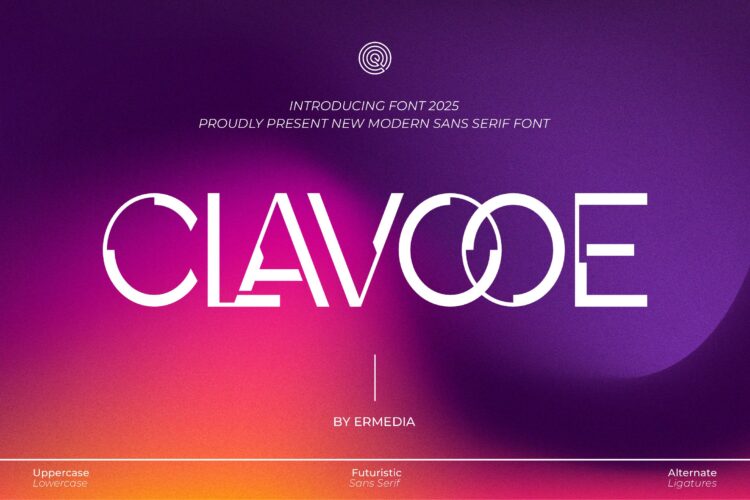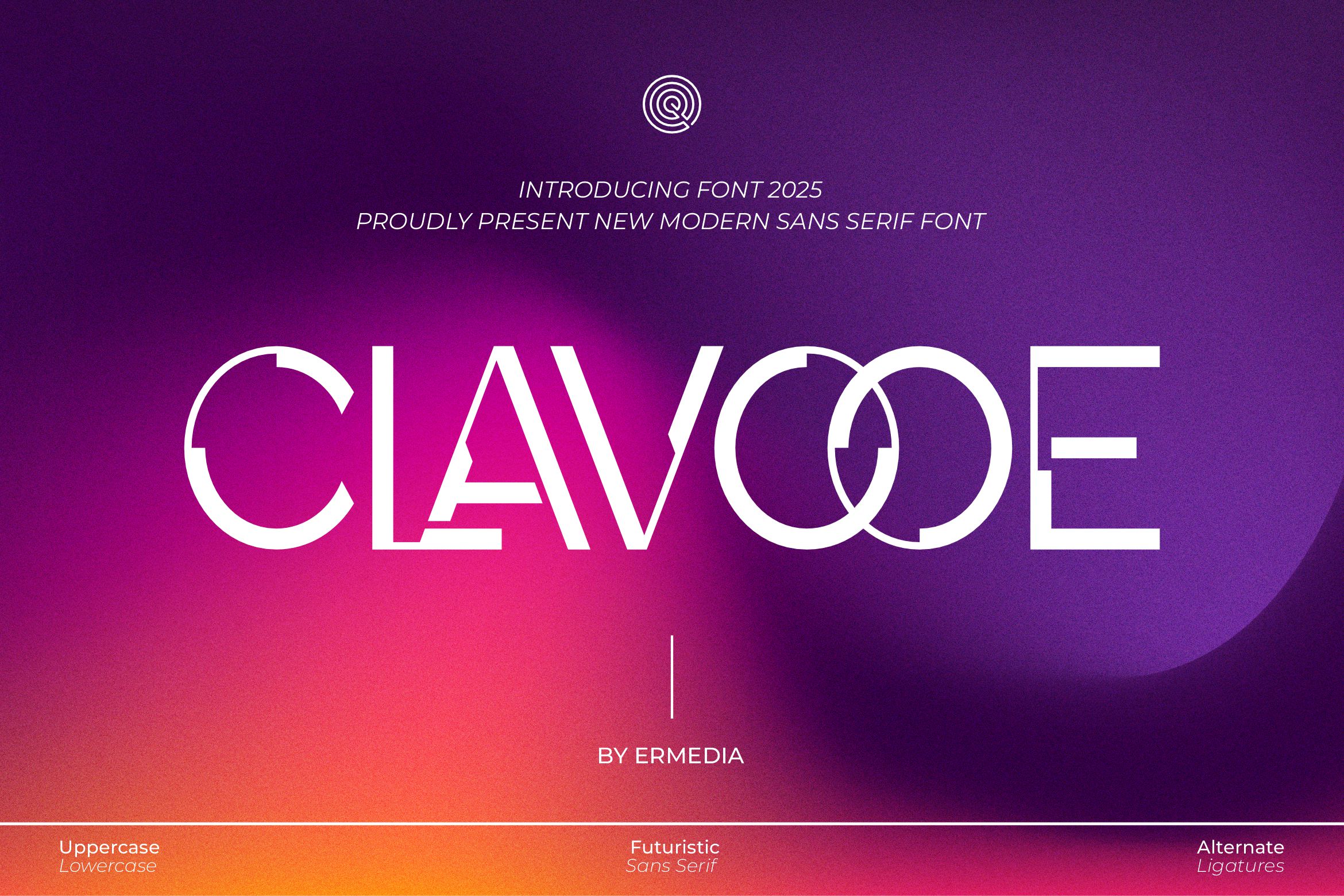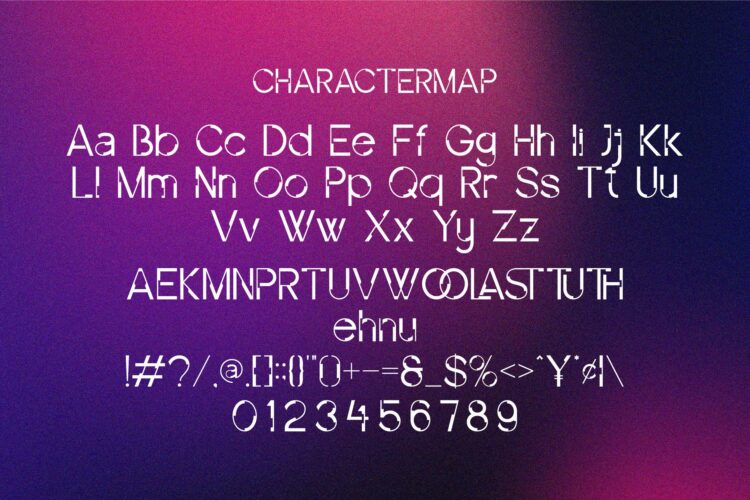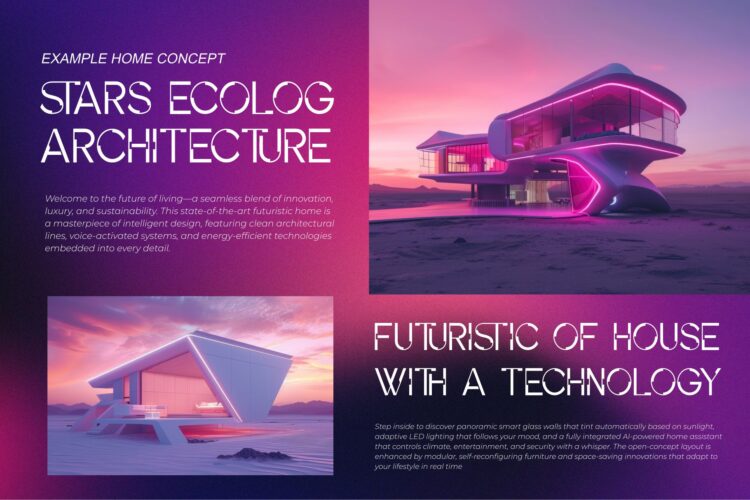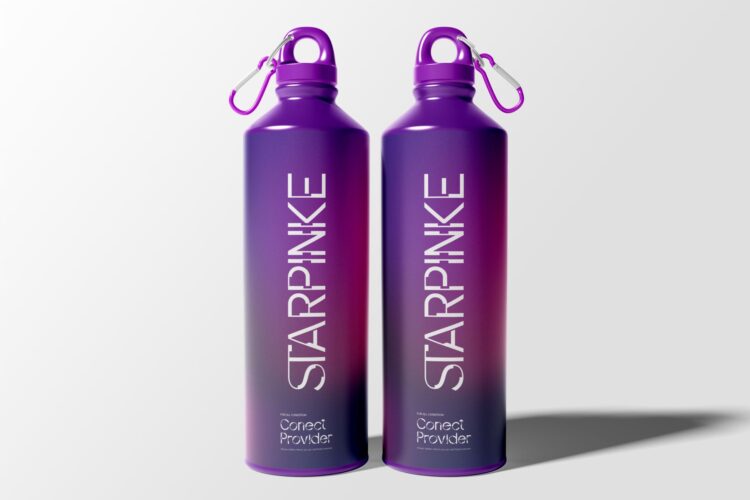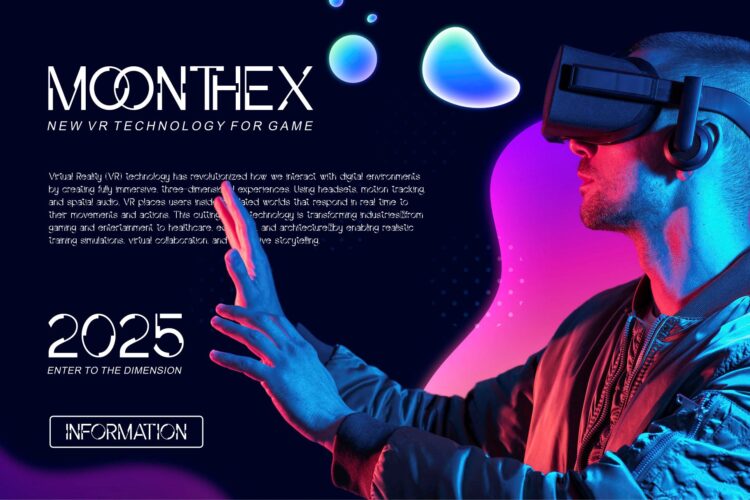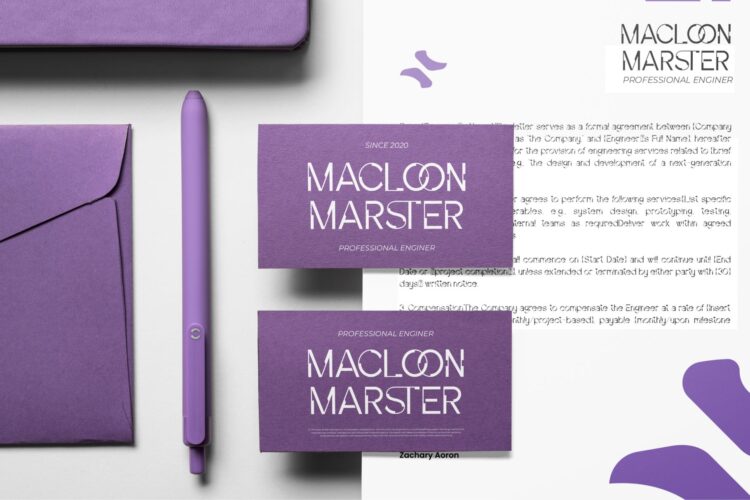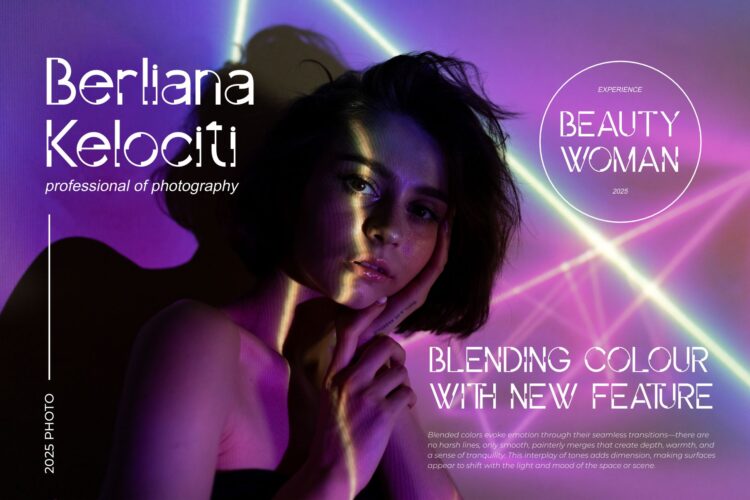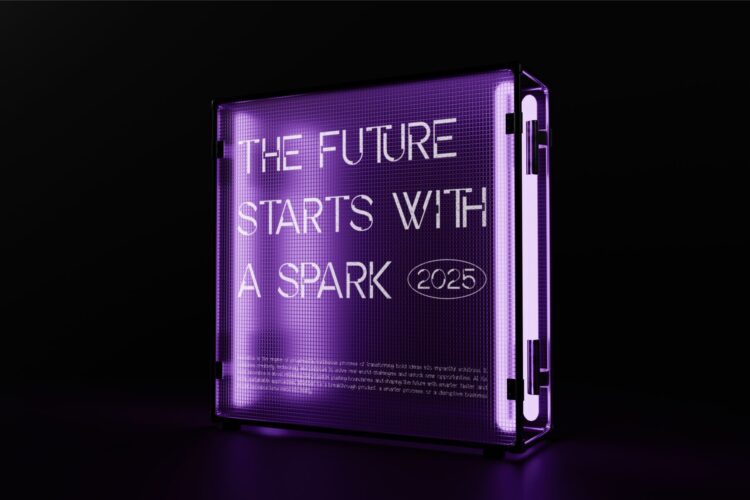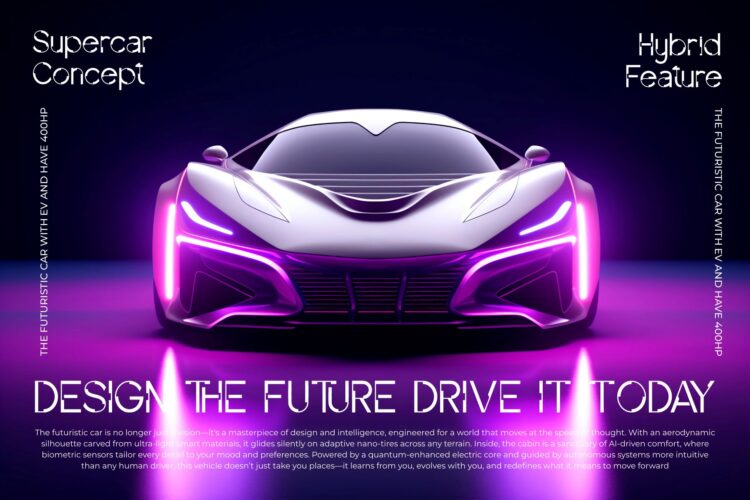
Clavooe Sans Serif is a modern and futuristic font type for all branding and logo designs. This modern and futuristic Sans Serif font has a beautiful character. This font is suitable for invitation card designs, cool logos, movie titles, movie names, business cards, book titles, brand names, and various other designs. Clavooe is a smooth sans serif font that exudes sophistication and the moment. Its stylish ligatures make this font a perfect partner for any project.
Clavooe || Modern Futuristic Font